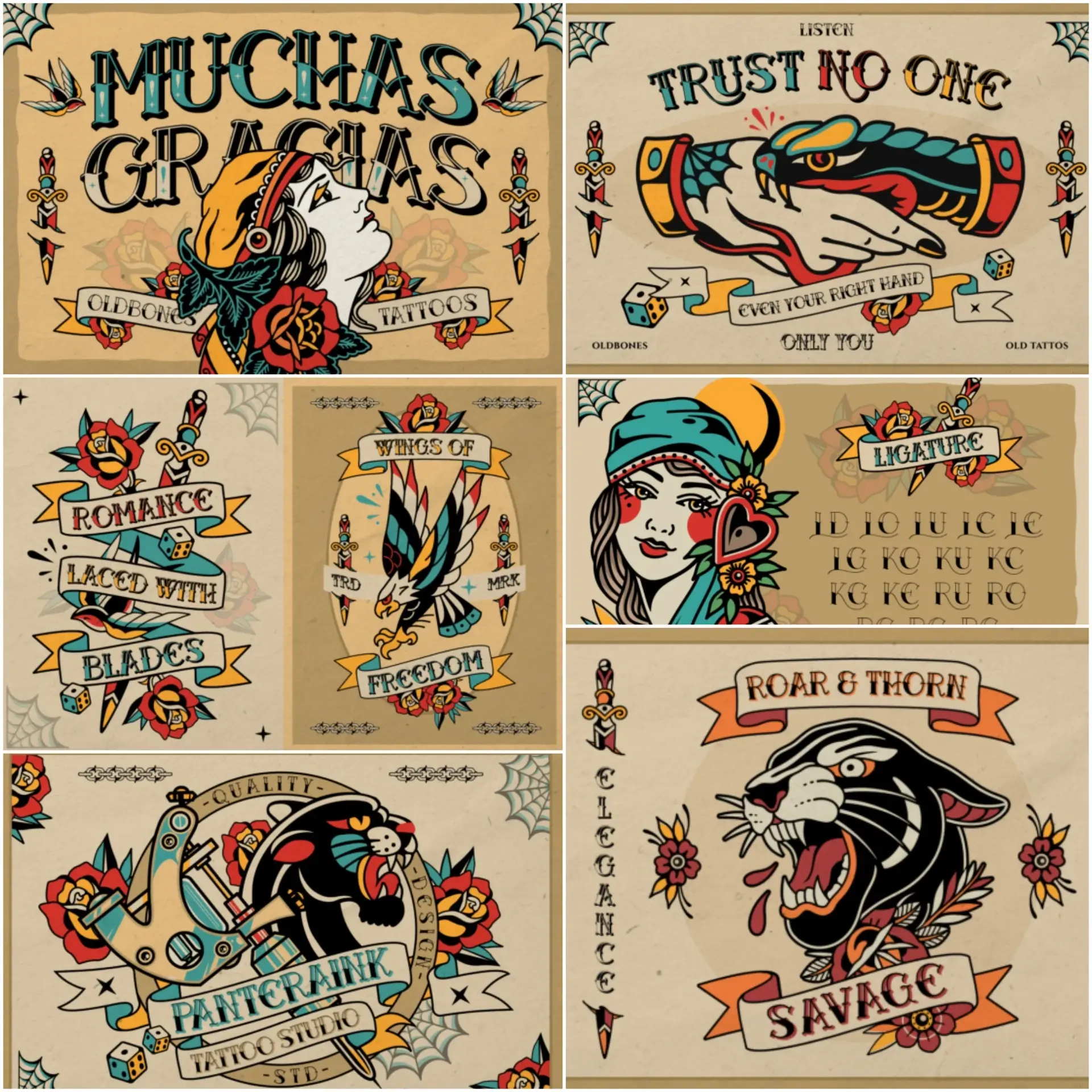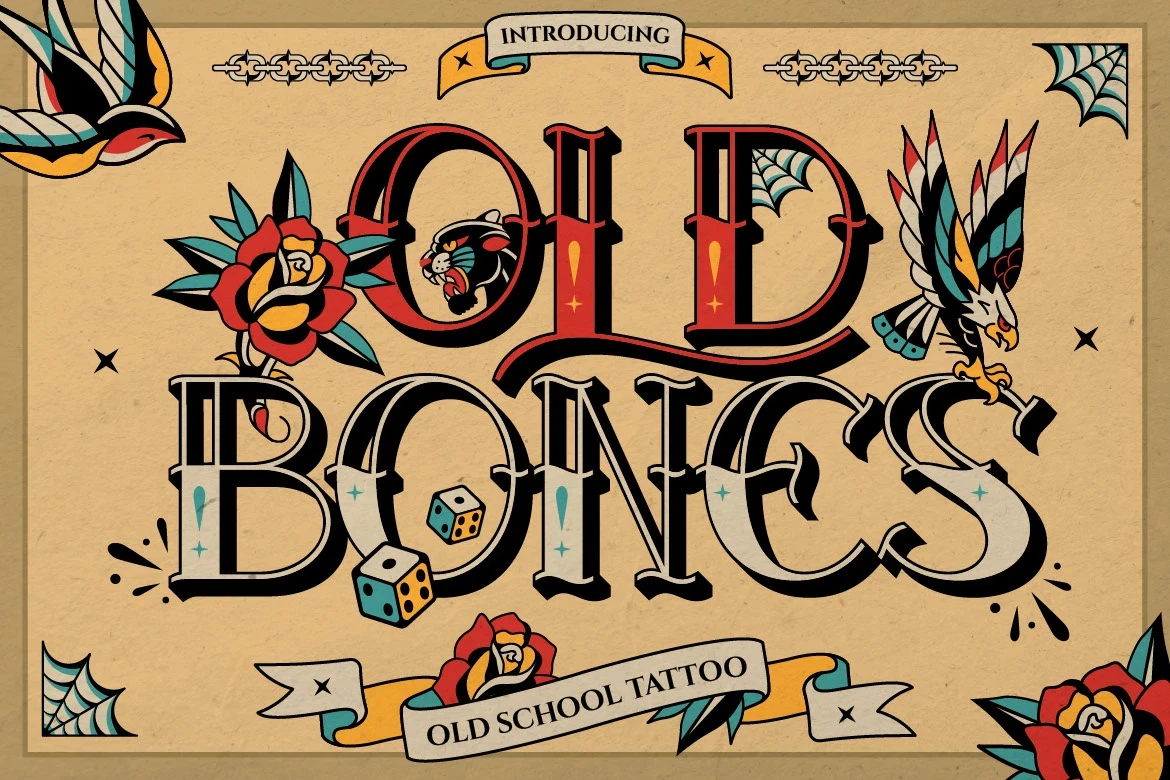
Imagine stepping into a smoky, mid-century tattoo shop, and you’ll get Old Bones Font. It’s not your typical font; it’s a 1950s Tattoo Font inspired by tattoo art, sailor stories, and the bold feel of classic ink. It’s been updated for today’s designers who want their words to have an edge.
Basically, Old Bones Font has the cool vibe of a Vintage Rockabilly Typeface. It features heavy lines, strong curves, and a straightforward look, as if it were painted on a window late at night. It comes in two styles—Regular and 3D—so you can switch between bold and textured, just like a neon sign full of attitude.
As an Old School Display Font, Old Bones works best where you need to show off some character. Picture it on clothing tags with a bit of rebellion, barbershops with shiny chairs and old-school hair products, or tattoo parlors, diners, coffee shops, and rockabilly bars that aren’t afraid to be loud. This font doesn’t whisper; it shouts.
Want something with extra impact? The 3D style adds a carved, shadowed look that feels like raised letters on a leather jacket. It’s a perfect 3D Tattoo Lettering Font for posters, album art, show flyers, stickers, and merchandise that needs to grab people’s attention.